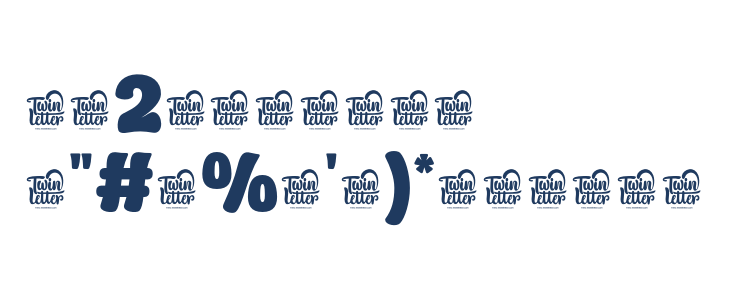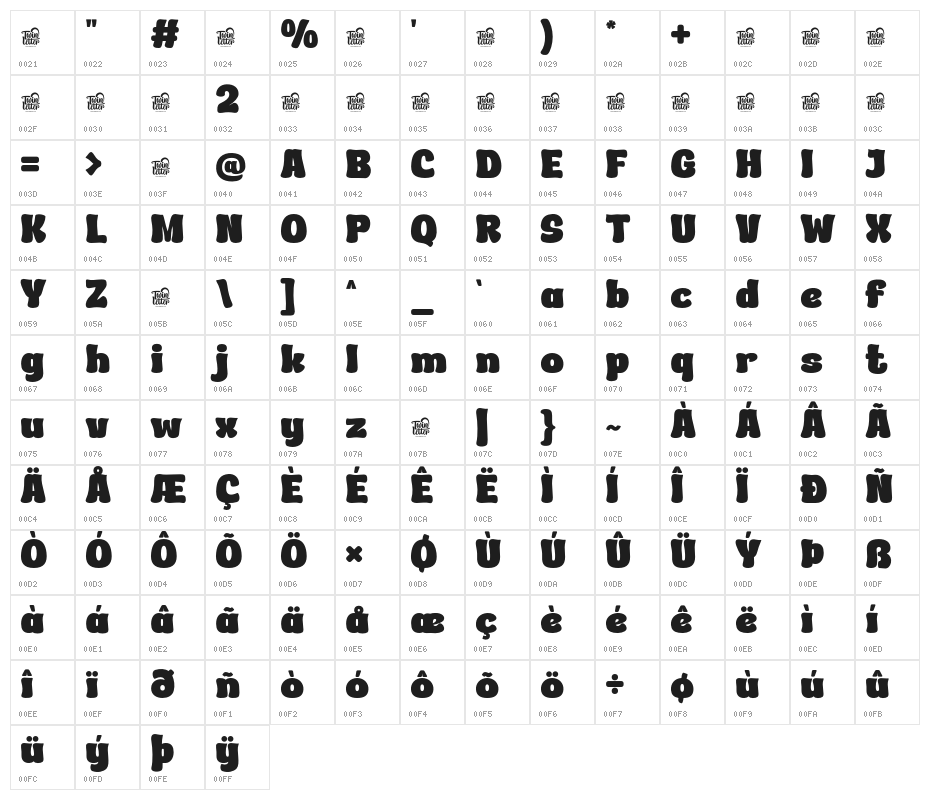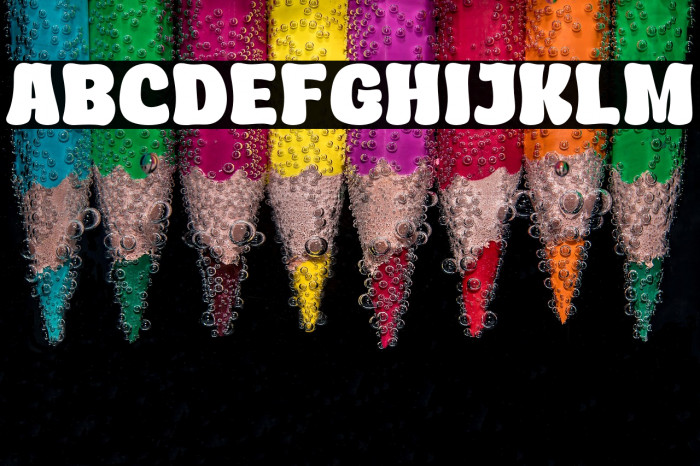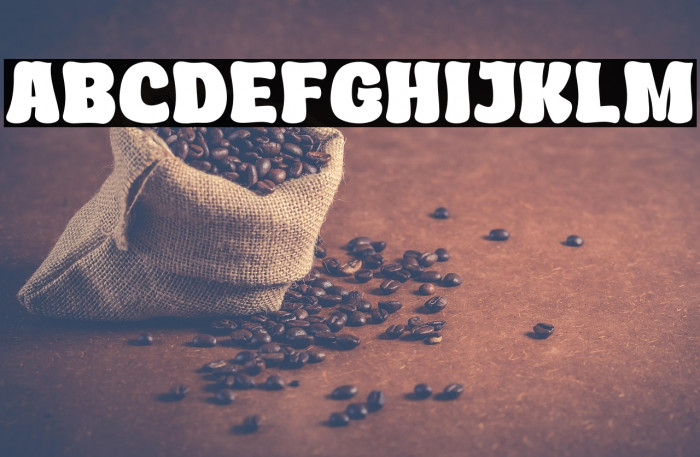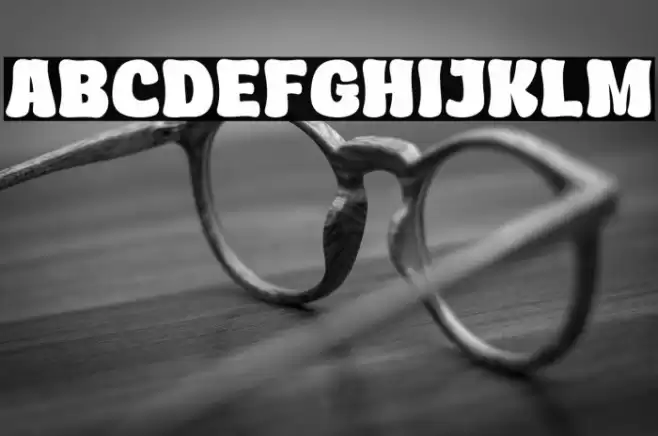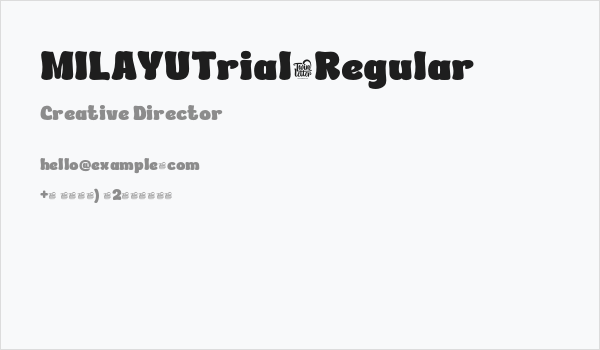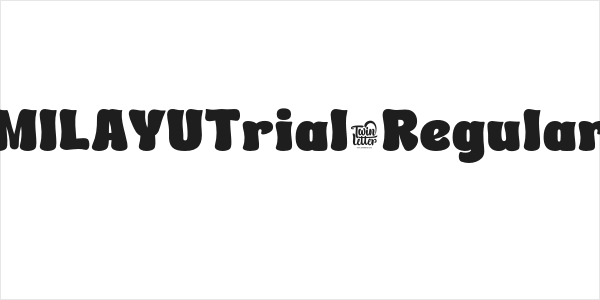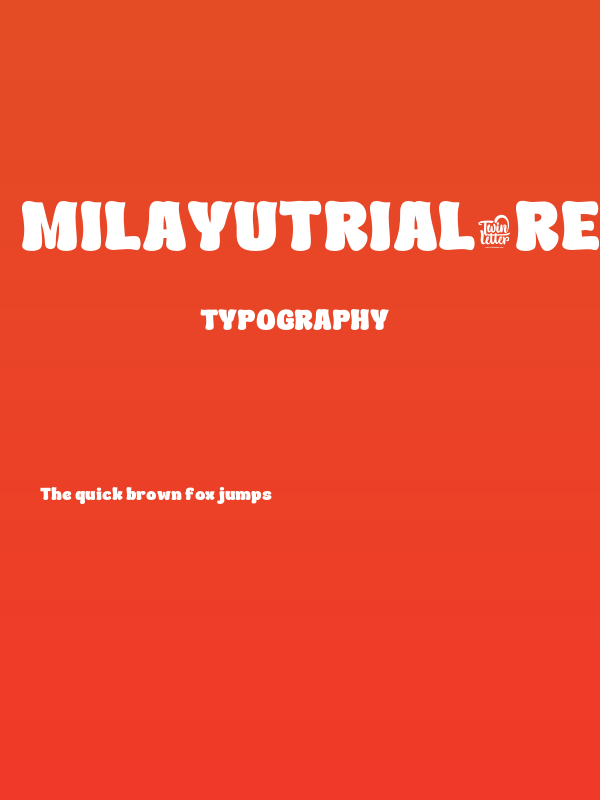
MILAYUTrial-Regular Font
MILAYUTrial-Regular Description
This font features a bold and playful design with thick, rounded strokes that give it a friendly and approachable appearance. The characters are well-defined with a consistent weight, making them easily readable. The uppercase and lowercase letters maintain a uniform style, while the numbers and special characters complement the overall aesthetic. Its unique style is characterized by a bubbly and whimsical look, which adds a touch of fun and creativity to any project.
| Proposed Projects | Ideal for children's books, playful branding, posters, and creative advertising campaigns. |